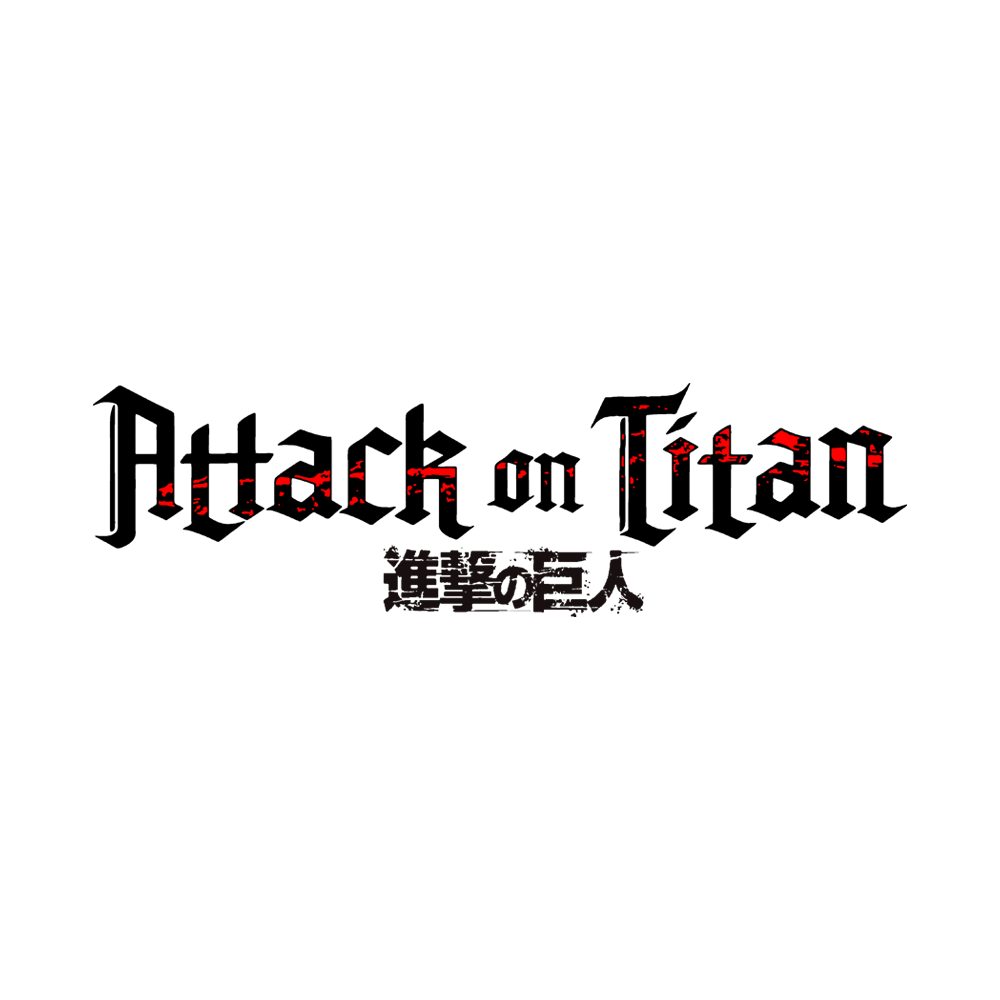
Attack on Titan Font
The Attack on Titan logo font was hand lettered but we found a similar font called Ditty by FG Studios. The font is free for personal use.